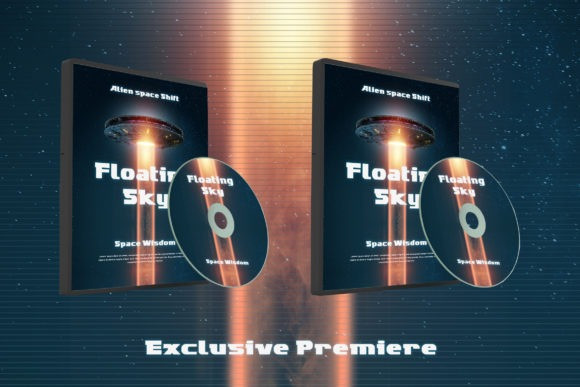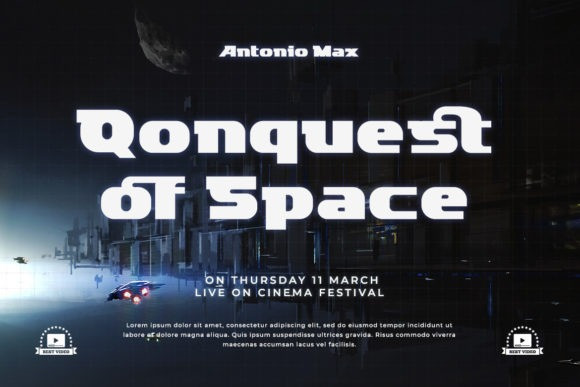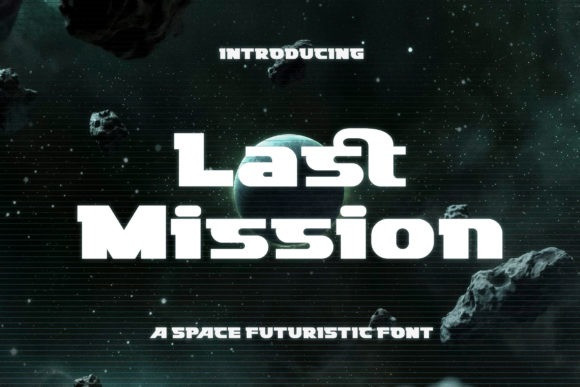
Last Mission Font
Last Mission Display Font is a space-like and futuristic display font. It is incredibly adept for games, posters or pretty much anything that requires a techno look. This font is PUA encoded which means you can access all glyphs and swashes with ease!